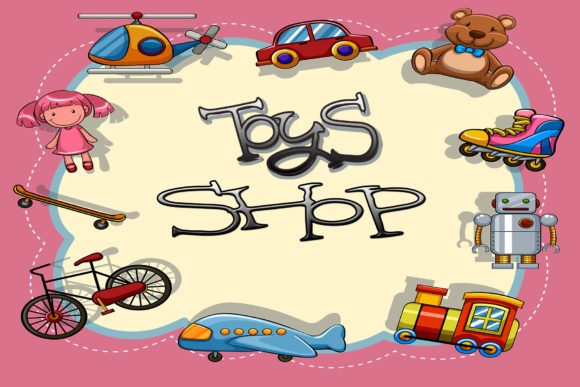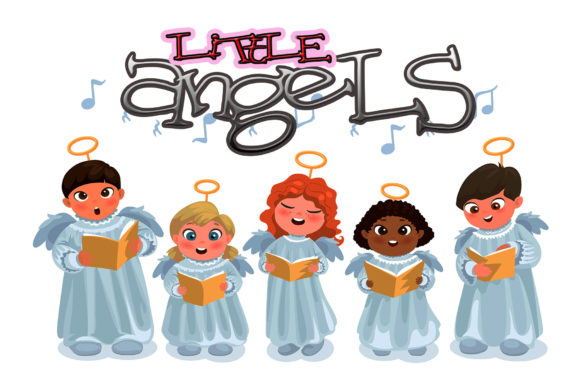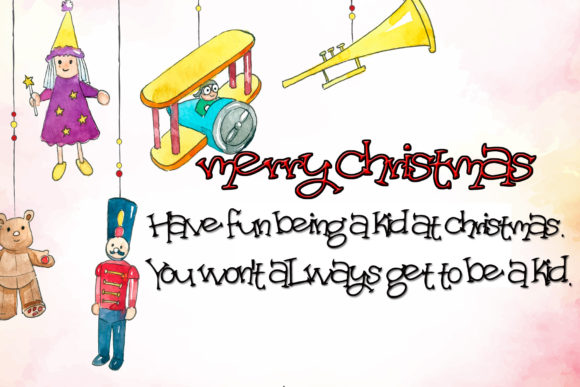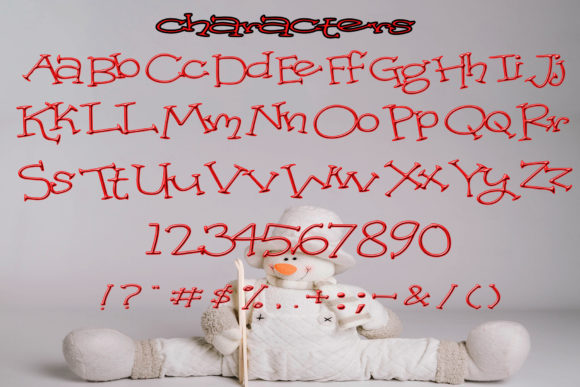
The Perfect Touch for Your Design: Baby Dolls Font
You’ve spent hours perfecting your design, and it’s almost there – but something’s missing. A dash of personality, a pinch of whimsy, and a whole lot of charm. That’s where the Baby Dolls Font comes in, adding a touch of magic to your projects and leaving a lasting impression on your audience.
This adorable display font is designed to bring a smile to your face and a spring to your step. With its quirky, fun vibe, the Baby Dolls Font is the perfect addition to any design, whether you’re creating a playful logo, a whimsical social media graphic, or a heartfelt invitation. As a designer, you know the value of a versatile font that can adapt to any project, and the Baby Dolls Font delivers.
Baby Dolls Font Key Features
- Font Family: Baby Dolls is a unique, hand-drawn font designed for creating a whimsical and playful atmosphere.
- Unique Characteristics: Baby Dolls features intricate details, such as hand-drawn textures and subtle imperfections, giving it a distinctive, handmade feel.
Baby Dolls Font Review
Overall, I think the Baby Dolls Font is a unique and quirky addition to any design project. It works well in ✨ situations where a playful, whimsical touch is needed, such as in children’s books, advertising campaigns, or even social media graphics.
Here are some specific scenarios where the Baby Dolls Font shines:
- As a title font for a children’s book or nursery rhyme
- In advertising campaigns targeting a younger demographic
- As a decorative element in social media posts or blog articles
- ⚠️ The font may be too playful or distracting for more formal or professional designs
- ⚠️ The font’s uniqueness may not translate well to certain color schemes or backgrounds
- ⚠️ The font may be difficult to read in smaller sizes or for users with vision impairments
Overall, I think the Baby Dolls Font is a fun and creative choice for designers looking to add some personality to their work. While it may not be suitable for every project, it’s definitely worth considering for designs that require a touch of whimsy and playfulness.
Tips for Getting the Most Out of Baby Dolls Font
To get the most out of the Baby Dolls Font, use it for:
- Toy packaging and branding.
- Cute and playful advertisements.
Remember to pair the font with matching colors and designs to create a cohesive look.
The Baby Dolls Font is commonly used for:
- Children’s clothing and accessories.
- Toy-themed websites and social media.
- Choose a wooden sign or a canvas and paint a soft pastel background to match the nursery theme.
- Use a combination of uppercase and lowercase letters to create a whimsical feel, with the Baby Dolls Font as the primary font.
- Add decorative elements such as flowers, stars, or clouds to enhance the whimsical feel.
- Pair the Baby Dolls Font with a more elegant script font for a contrasting look.
- Add some hand-painted details such as vines or leaves to create a natural and organic feel.
- Choose a soft pink or blue background to match the baby shower theme.
- Use the Baby Dolls Font to write the invitation text, with a combination of uppercase and lowercase letters to create a playful feel.
- Add decorative elements such as baby blocks, toys, or flowers to enhance the theme.
- Pair the Baby Dolls Font with a more modern sans-serif font for a contrasting look.
Alternatives to Baby Dolls Font for Designers
Cream Soda Font is a playful, cursive font that resembles a handwritten script. It’s ideal for designs that require a touch of elegance and sophistication, such as wedding invitations, birthday cards, and children’s book illustrations.
Q: Can I customize Baby Dolls to fit my specific design needs, and are there any technical limitations?
While Baby Dolls is a highly customizable font, some technical limitations apply. You can adjust font size, color, and style using most design software, but making significant changes to the font’s structure or layout may require advanced technical expertise. We recommend experimenting with the font in a design program before attempting to modify it.